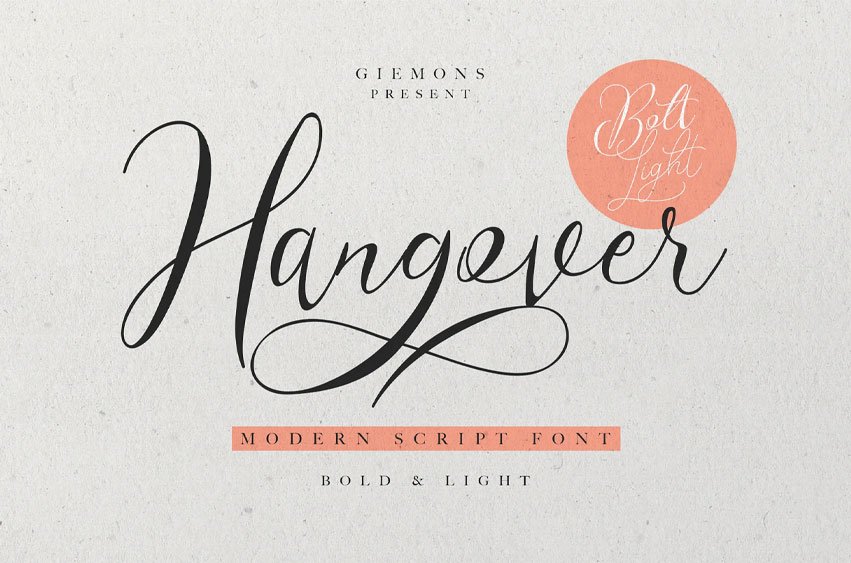
Hangover Font Script Family is modern lettering font and also has cute display font. This font have 2 version BOLD & LIGHT. Can make it easier to convey the message in your design.
Use for awesome wedding card, birthday card, labeling, clothing, movie sceen, poster, movie title, gigs, album covers, logos, and much more.
- Uppercases & Lowercases
- Numerals & Punctuations
- Lowercase Alternates (a-z)
- Lowercase Final Form (a-z)
- Lowercase Swash (g h j k m n r y)
- Uppercase Alternates (E G H)